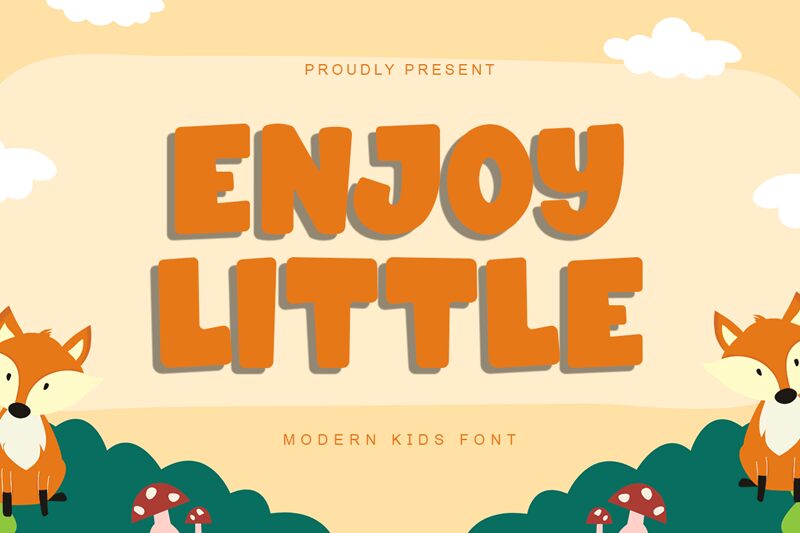
Enjoy Little font by Kong Font is a vibrant display typeface that exudes playful energy with its bold, cartoon style. The exaggerated, rounded characters make it perfect for applications where fun and creativity are paramount. This free font is a fantastic choice for children’s books, playful branding, or eye-catching posters.
Its unique design elements provide versatility across various media while maintaining a distinctive personality. Designers looking to download Enjoy Little will find its engaging attributes ideal for projects needing a touch of whimsy and charm. Embrace the dynamic spirit of this free font and explore how it elevates your visual storytelling.